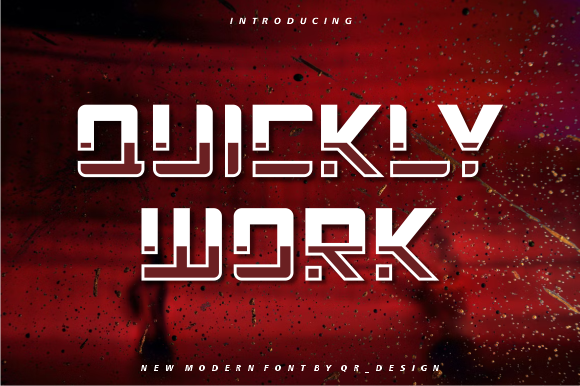
Unleash the Power of Quickly Work Font: A Bold and Authentic Display Font for Unforgettable Designs
Embark on a typographic journey with Quickly Work Font, a captivating display font that's bursting with boldness and authenticity. Designed with meticulous attention to detail, this font is ready to elevate your designs to new heights, leaving an unforgettable impression on your audience.
Express Yourself with Unparalleled Style:
Quickly Work Font is a versatile masterpiece crafted for the modern designer. Its distinct character shines through in every letterform, adding a touch of sophistication and edge to your projects. Whether you're creating a captivating logo, unleashing your creativity on a t-shirt design, or designing the ultimate gaming or sports experience, Quickly Work Font is your go-to choice for making a lasting impact.
Step into a World of Endless Possibilities:
With Quickly Work Font, the possibilities are limitless. Its wide range of applications makes it a perfect fit for a multitude of projects, allowing you to explore your creativity without boundaries. Its versatility extends from logos and branding to t-shirt printing, gaming, sports, and much more. Unleash your imagination and let Quickly Work Font guide you toward design brilliance.
Craft Designs that Captivate and Inspire:
Quickly Work Font is a font that speaks to the soul, evoking emotions and leaving a lasting impression. Its bold strokes and authentic charm have the power to transform ordinary designs into extraordinary works of art. With Quickly Work Font, you'll effortlessly create designs that resonate with your audience, leaving them captivated and inspired.
Join the Design Revolution:
Welcome to a new era of design, where boldness and authenticity reign supreme. Quickly Work Font is your gateway to unlocking a world of creative possibilities. Experience the thrill of crafting designs that command attention, designs that ignite imaginations, and designs that leave an indelible mark on the hearts of your audience.
Elevate Your Design Game and Make Your Mark:
Don't settle for ordinary fonts that blend into the background. Choose Quickly Work Font and let your designs shine brighter than ever before. Make a statement, stand out from the crowd, and create designs that truly capture the essence of your brand. With Quickly Work Font, you'll leave a lasting legacy of creativity and innovation.